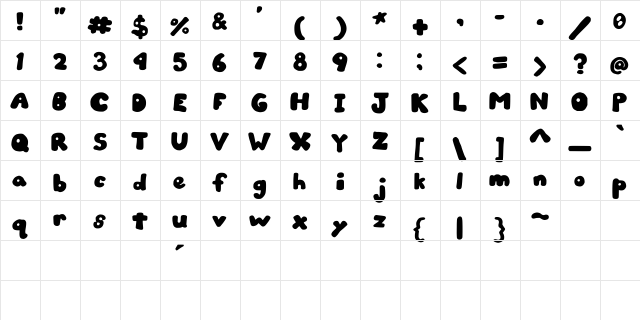
Bug-Eyed Girl EyedGirl
Design Context for Bug-Eyed Girl Typeface
Bug-Eyed Girl is a composed and adaptable typeface that performs quietly and consistently across a wide range of design contexts.